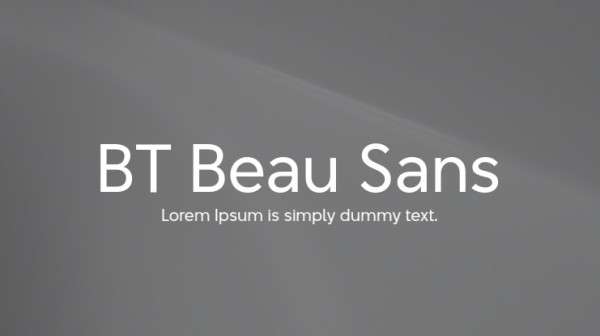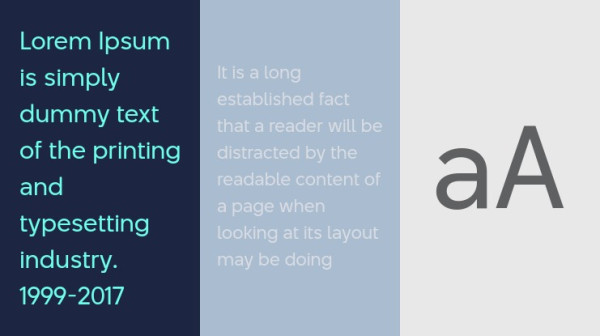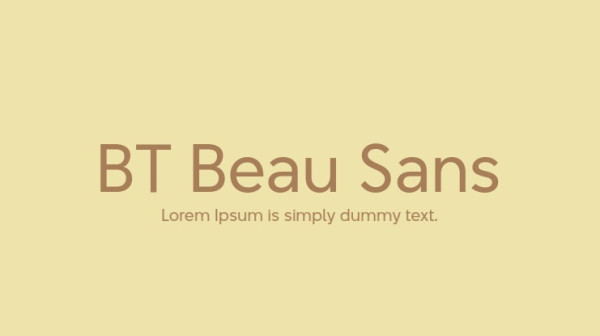
BT Beau Sans Font
BT Beau Sans Font, by BeauType Studio is a type system designed for use with short and block text. With the foundational direction of geometric and humanist design, BTBeau Sans took inspiration from our everyday lives, where humans and technology continuously converge, and digital platforms are deeply integrated into our subconscious, becoming an indispensable part of our daily lives.